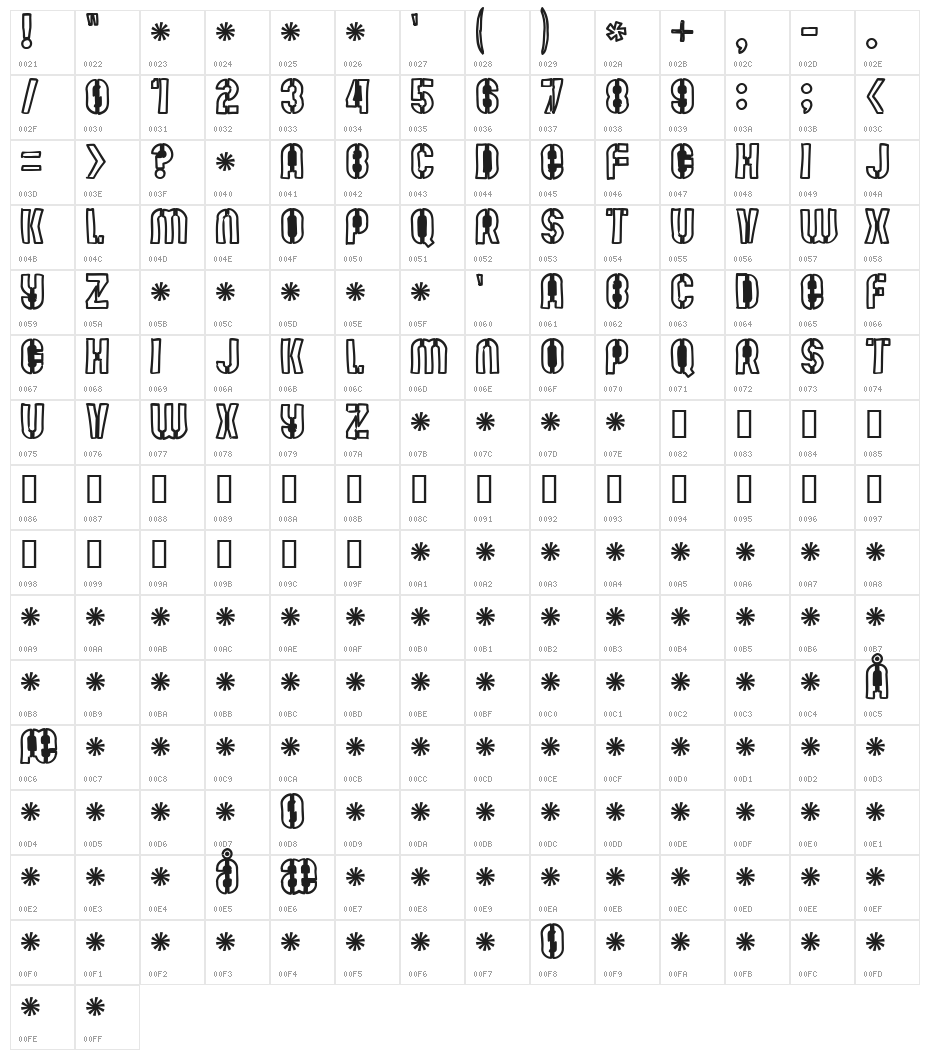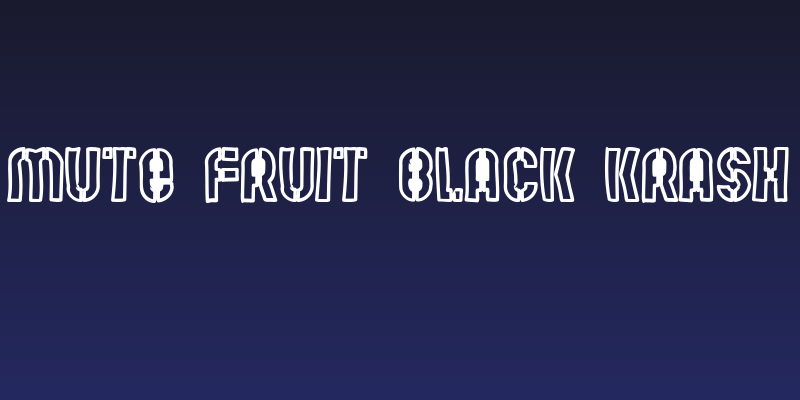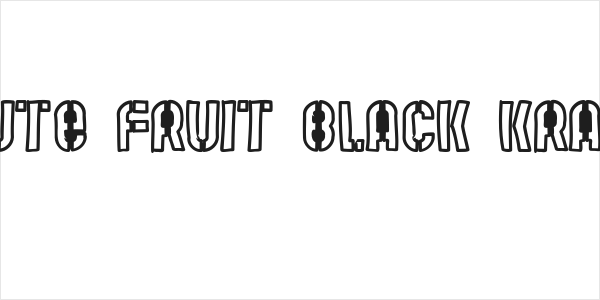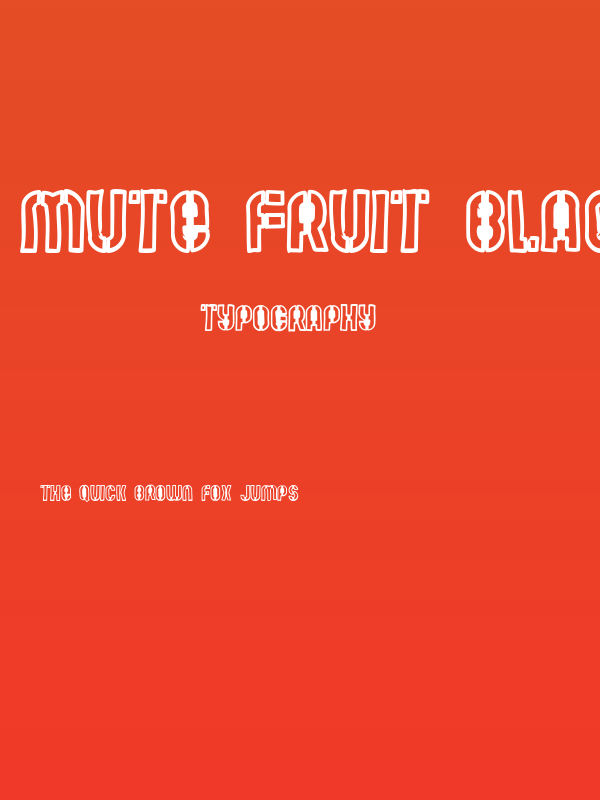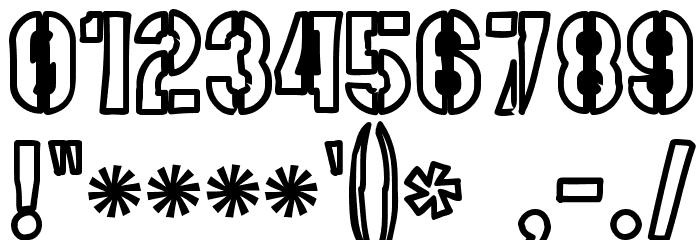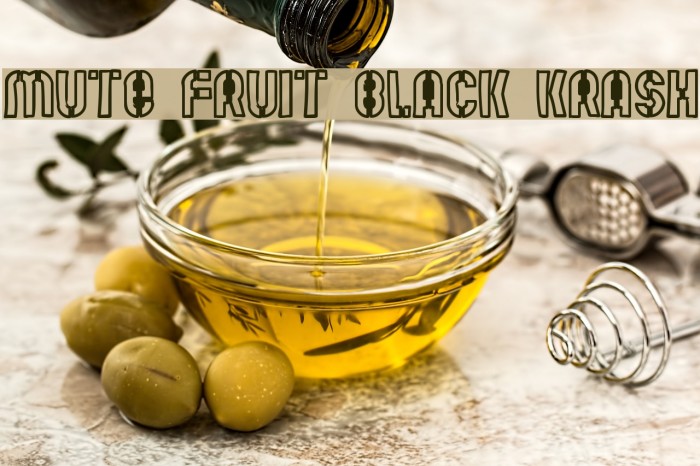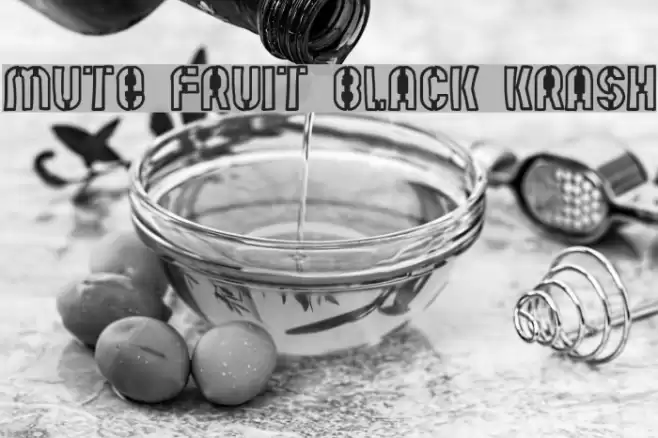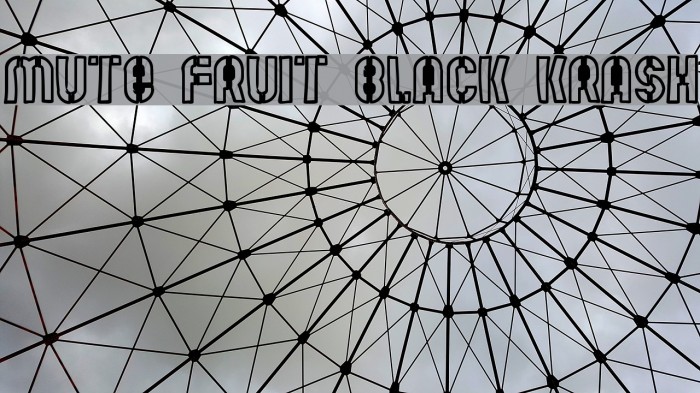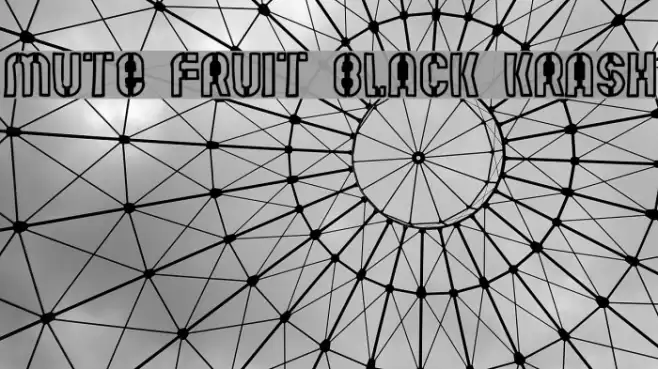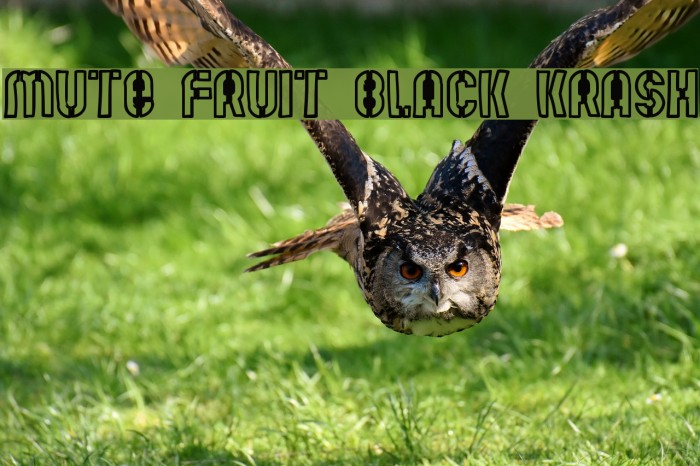
Mute Fruit Black Krash Font
Mute Fruit Black Krash Description
This font features a bold, striking design with a unique blend of solid and outlined elements, creating a dynamic and eye-catching appearance. The uppercase letters are particularly prominent, with thick strokes and a playful, almost cartoonish style. The lowercase letters maintain the same boldness, ensuring consistency across the typeface. Numbers and special characters are equally bold, with a distinctive style that complements the letters. The font's overall aesthetic is modern and playful, making it ideal for projects that require a strong visual impact.
| Proposed Projects | Ideal for posters, logos, headlines, and any design project that requires a bold and playful aesthetic. |